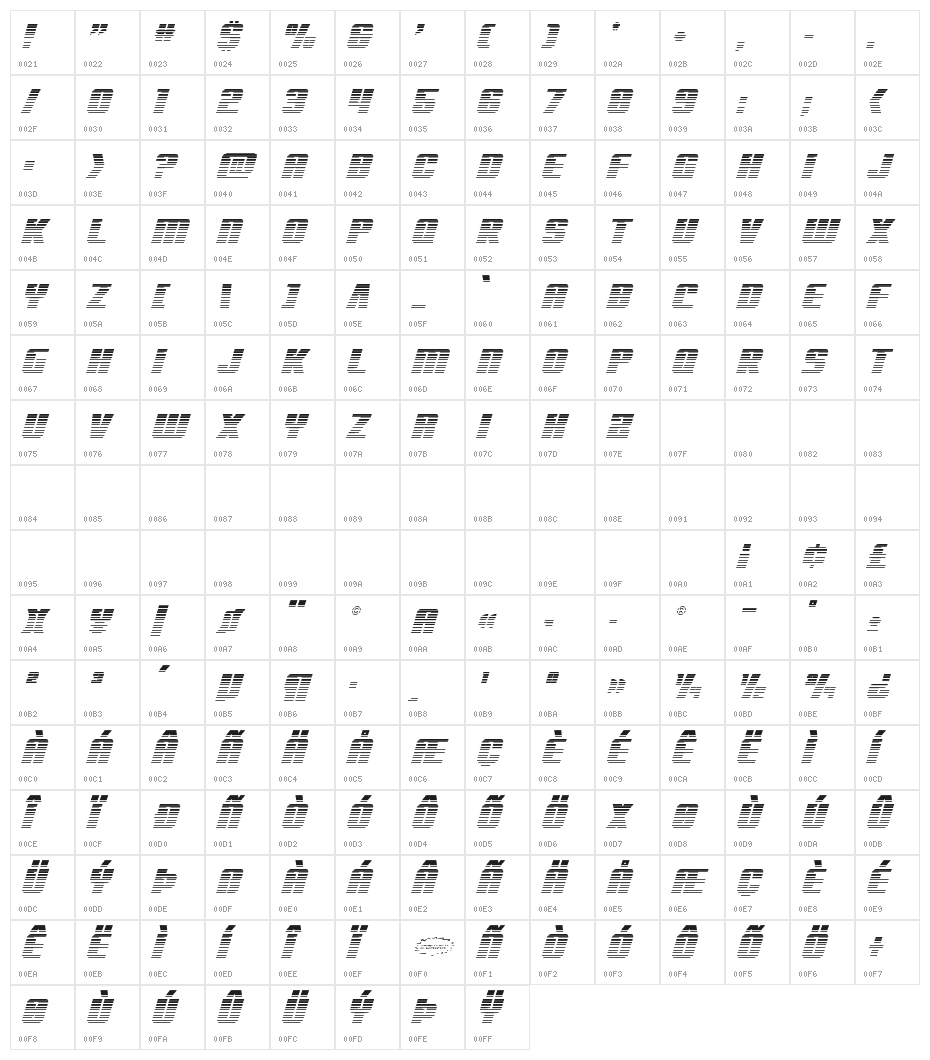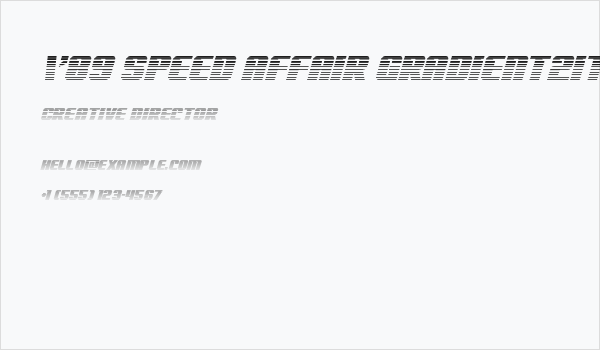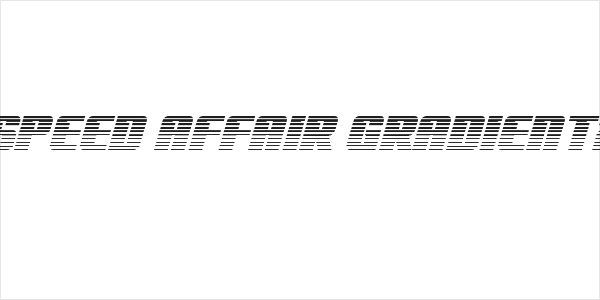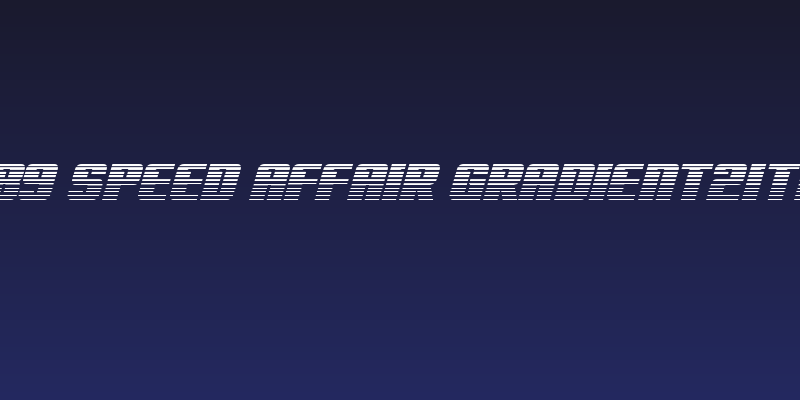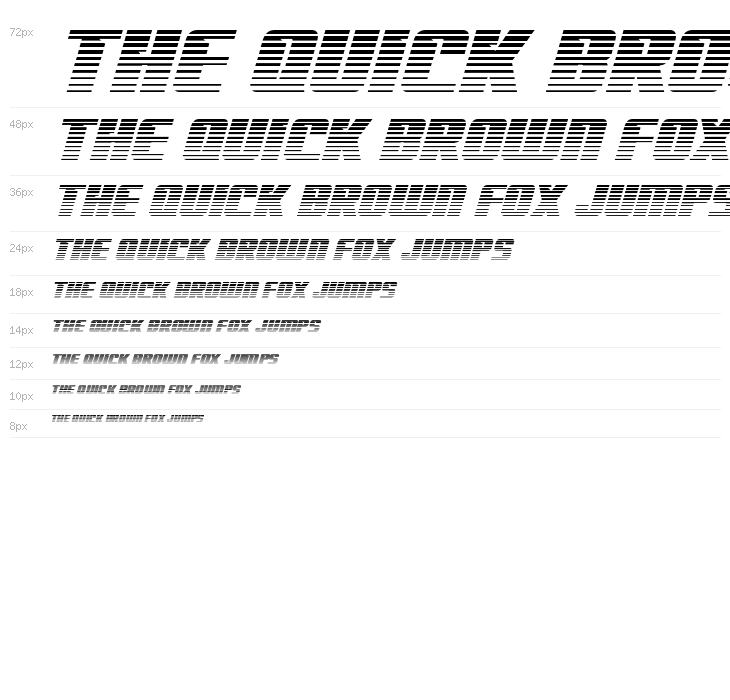
'89 Speed Affair Gradient2Ital Font
'89 Speed Affair Gradient2Ital Description
This font features a dynamic and energetic design, characterized by its bold, italicized letters with a distinctive striped pattern that suggests speed and movement. The uppercase and lowercase letters, along with numbers and special characters, maintain a consistent style that emphasizes a sense of urgency and modernity. The font's unique gradient effect within each character adds depth and a futuristic touch, making it stand out in any design. Its structured yet playful appearance makes it suitable for projects that require a sense of motion and excitement.